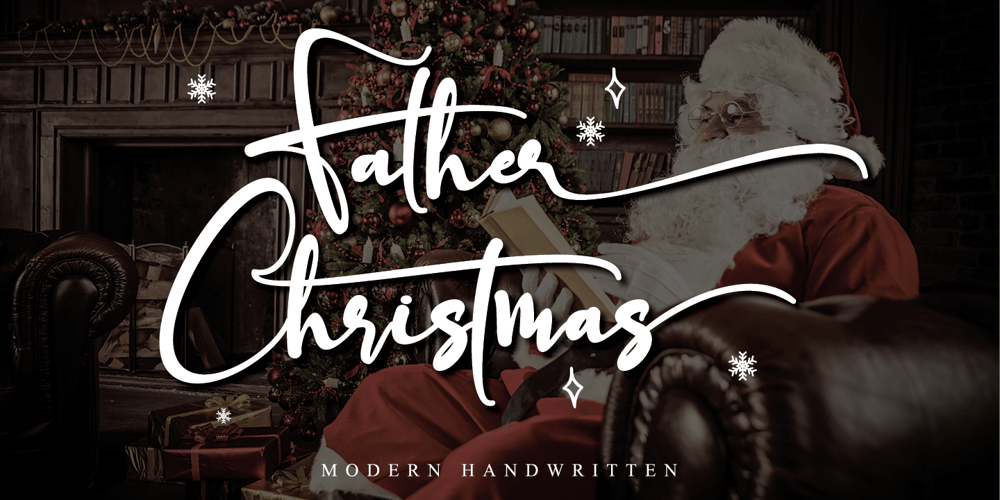
Father Christmas
Father Christmas font
Father Christmas Font Family was designed by Thomas Aradea and published by Letterara. Father Christmas contains 1 styles and family package options. Father Christmas is a festive, fresh, rich, and elegant calligraphy font. It’s great for Christmas-themed greeting cards, branding materials, business cards, quotes, posters, apparel and more! This font is PUA encoded which means you can access all of the amazing glyphs and swashes with ease! It also features a wealth of special features including alternate glyphs and ligatures.